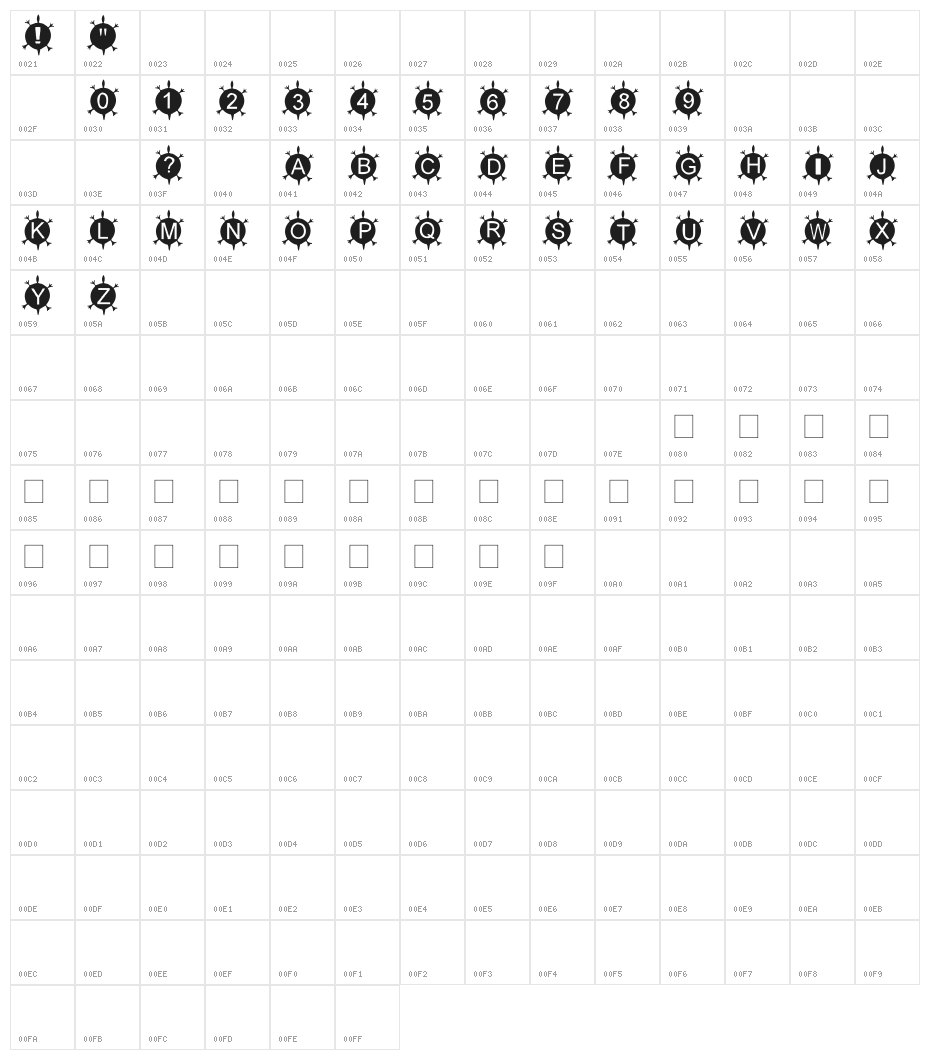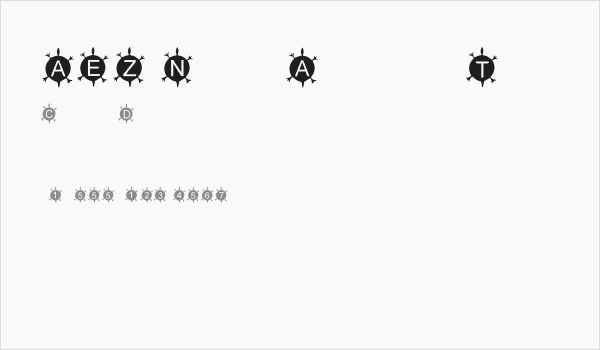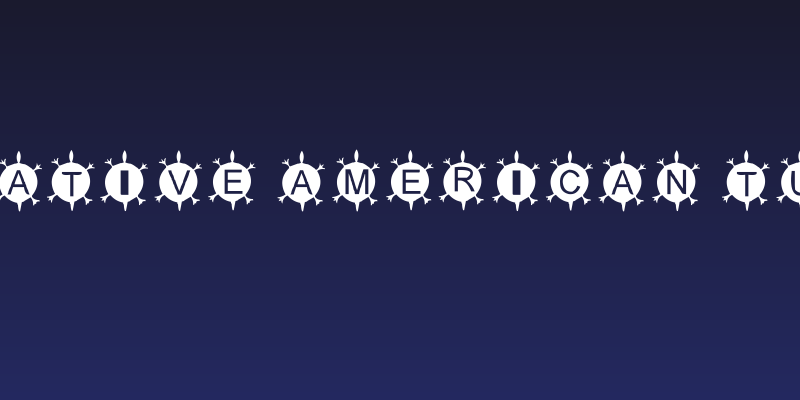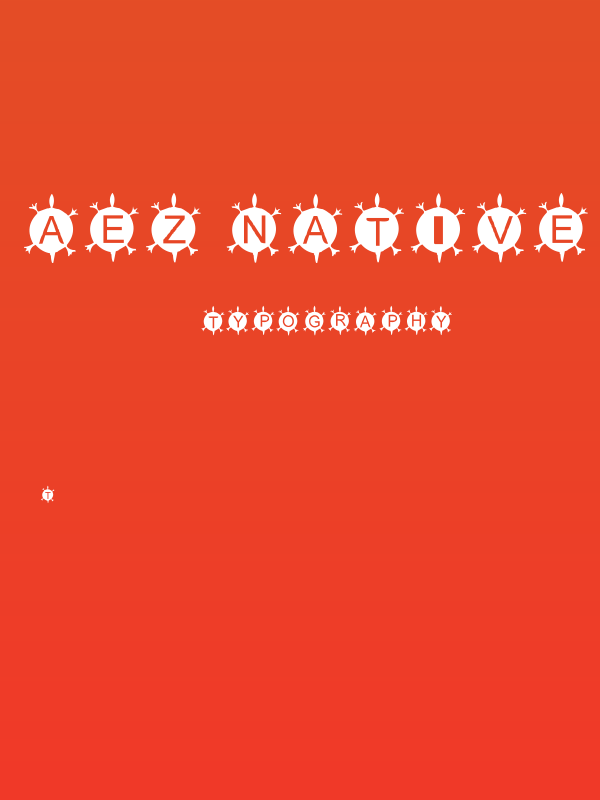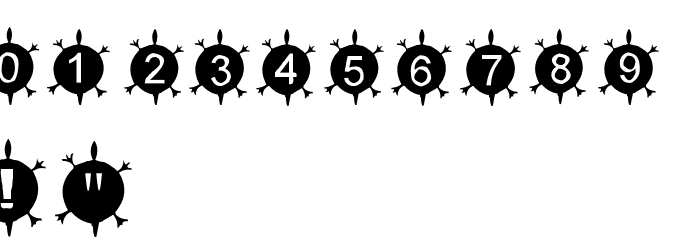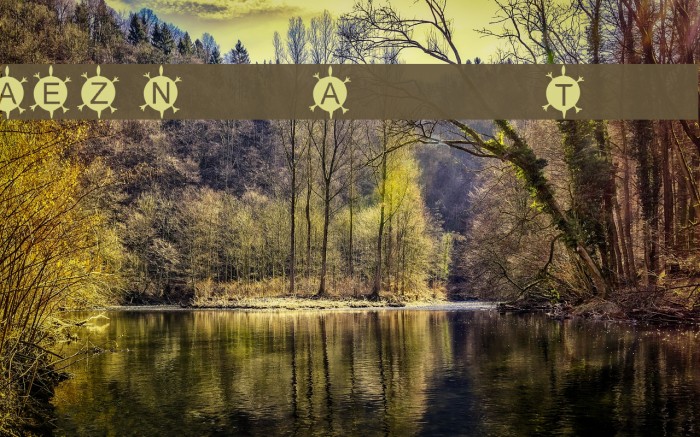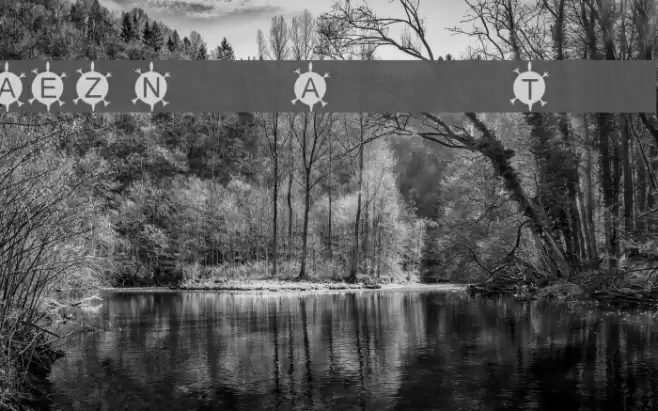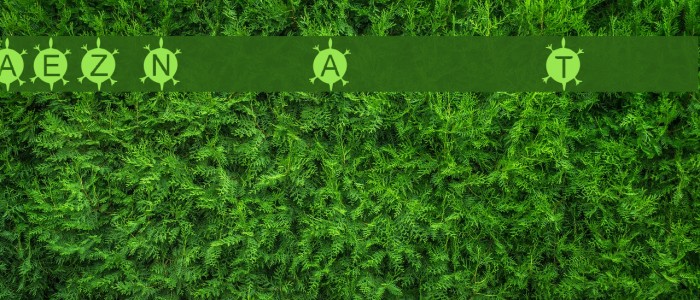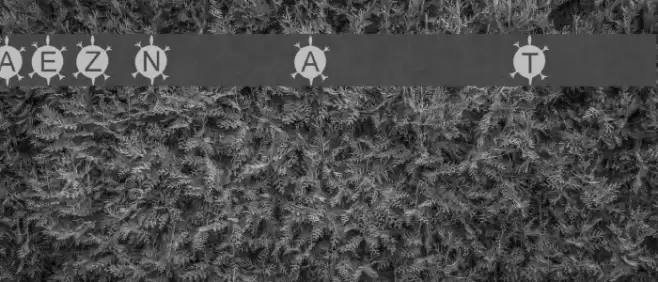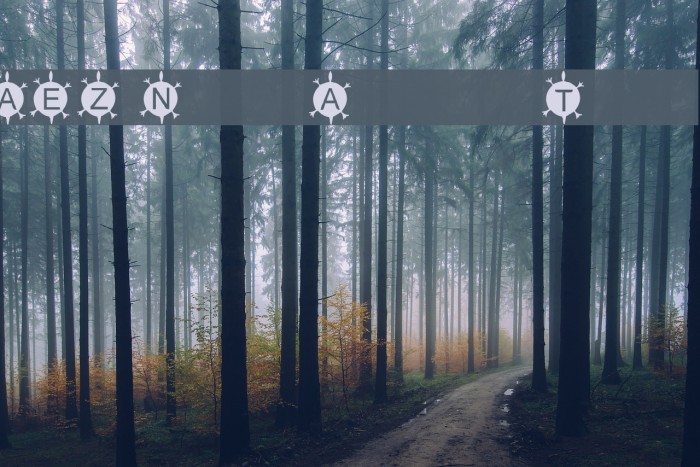
AEZ Native American Turtle Font
AEZ Native American Turtle Description
This font features a unique and creative design where each character is encapsulated within a turtle silhouette. The letters and numbers are bold and clear, making them easily readable despite the decorative nature of the font. The turtles add a playful and thematic element, making this font particularly suitable for projects that require a touch of whimsy or cultural reference. The characters are evenly spaced within the turtle shapes, providing a consistent and balanced appearance. This font is ideal for decorative purposes, where the visual impact is as important as readability.
| Use Case | Logos, Headlines, Posters |
| Proposed Projects | Ideal for cultural projects, children's books, themed events, or any design requiring a whimsical touch. |